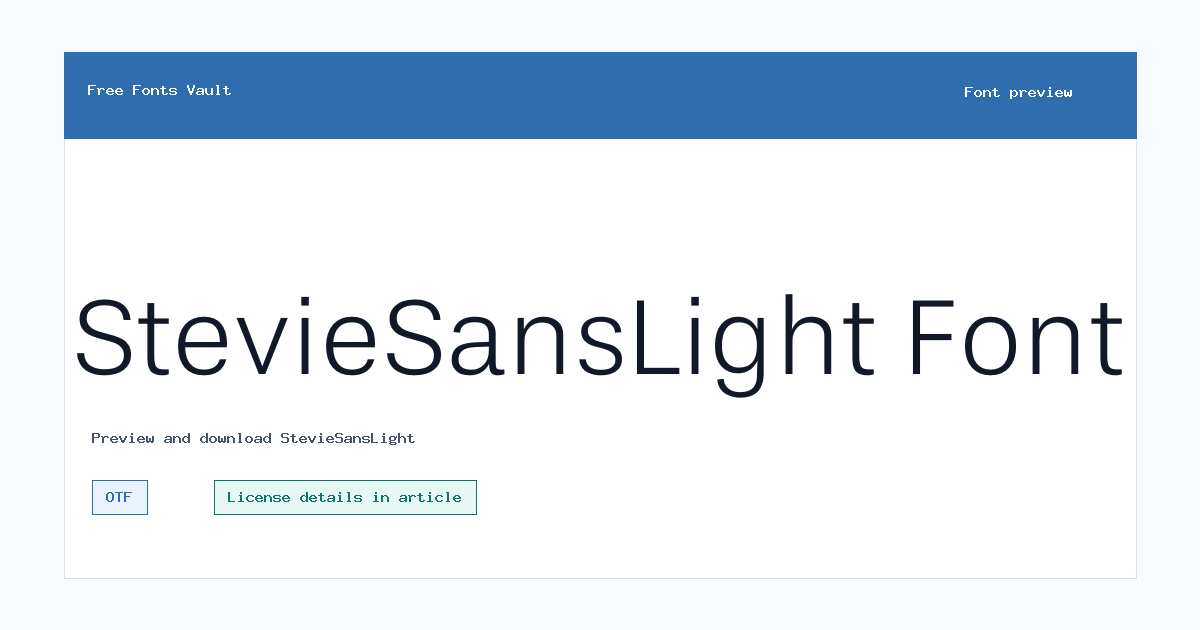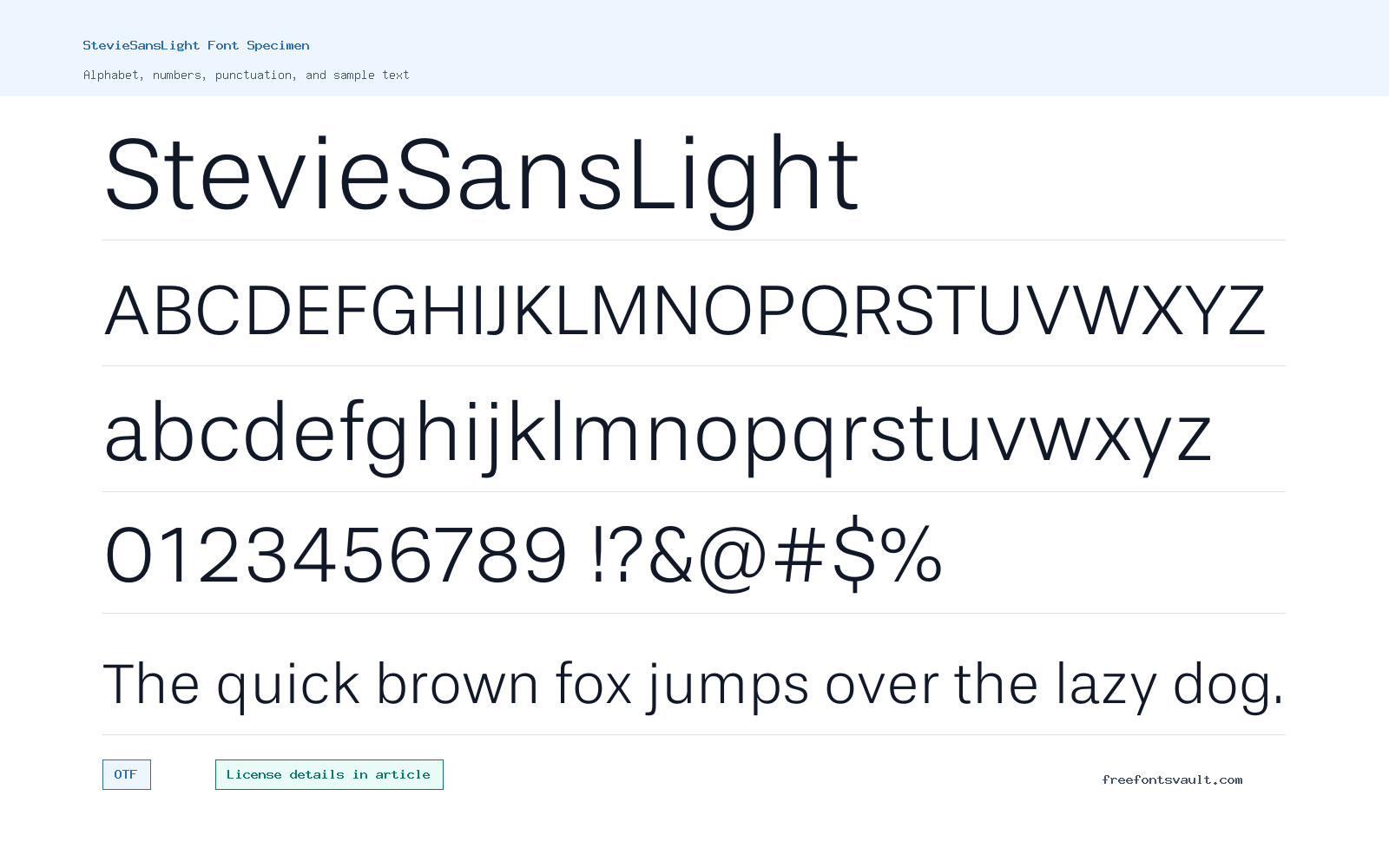
StevieSansLight
- Designer Marconi Gomes Lima
- Foundry Marconi Lima/Typefolio Digital Foundry
StevieSansLight font.
Stevie Sans Light is a light-weight style from the Stevie Sans family by Marconi Lima of Typefolio. It has a clean neo-grotesque feel, with a restrained shape that works well when you want modern sans-serif type without a loud personality.
About Stevie Sans Light
Stevie Sans is described by Font Matters as a contemporary neo-grotesque family with roots in 19th and early 20th century grotesque models. In the Light style, that means a slim, balanced sans serif that can feel calm in headings, decks, web mockups, magazine layouts, and corporate-style typography. The local file is an OpenType font named Stevie-Sans-Light.otf with a light 300 weight, so it is best tested where thin strokes have enough size and contrast to stay readable.
Use Stevie Sans Light for short headlines, section labels, clean navigation tests, pull quotes, presentation titles, and brand direction drafts. It can also work in body text at larger sizes, but a light weight may become too delicate in dense paragraphs, small mobile UI, or low-contrast color combinations. Try it in the preview with uppercase, lowercase, numbers, punctuation, and real sample text before using it in a finished design.
- Clean neo-grotesque sans-serif style suited to modern editorial, UI, and presentation typography
- Part of the wider Stevie Sans family, which sources describe as having multiple weights and broad typographic support
- Restrained letterforms that pair best with clear spacing and strong contrast
- Editorial headlines and magazine-style layouts
- Web and app interface mockups
- Corporate presentations and pitch decks
- Clean brand direction concepts
- Short labels, navigation, captions, and section titles
Stevie Sans is credited to Marconi Lima and Typefolio. Adobe Fonts lists Stevie Sans as designed by Marconi Lima and from Typefolio, while Fonts In Use identifies Typefolio as the foundry and gives a 2015 release date.
Because this is a light sans serif, test it at the actual size and background color you plan to use. Increase tracking carefully for all-caps headings, avoid very low contrast in small UI text, and pair it with a regular or medium sans weight when longer reading text needs more strength.
Who designed Stevie Sans?
Stevie Sans is credited to Marconi Lima, with Typefolio listed as the foundry.
What kind of projects fit Stevie Sans Light?
It fits clean editorial layouts, UI mockups, corporate typography, web concepts, presentations, and short text settings where a light sans serif can remain readable.